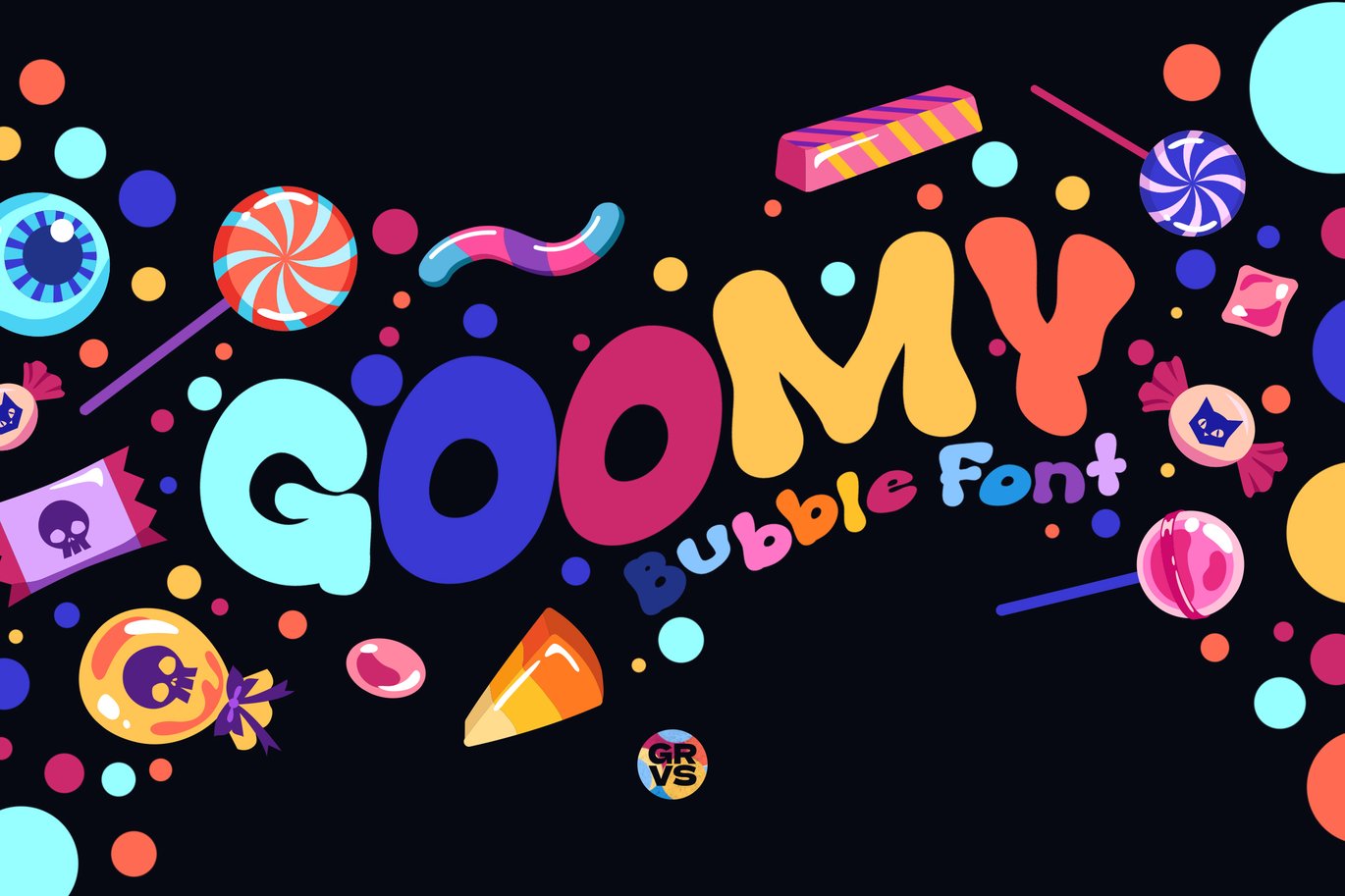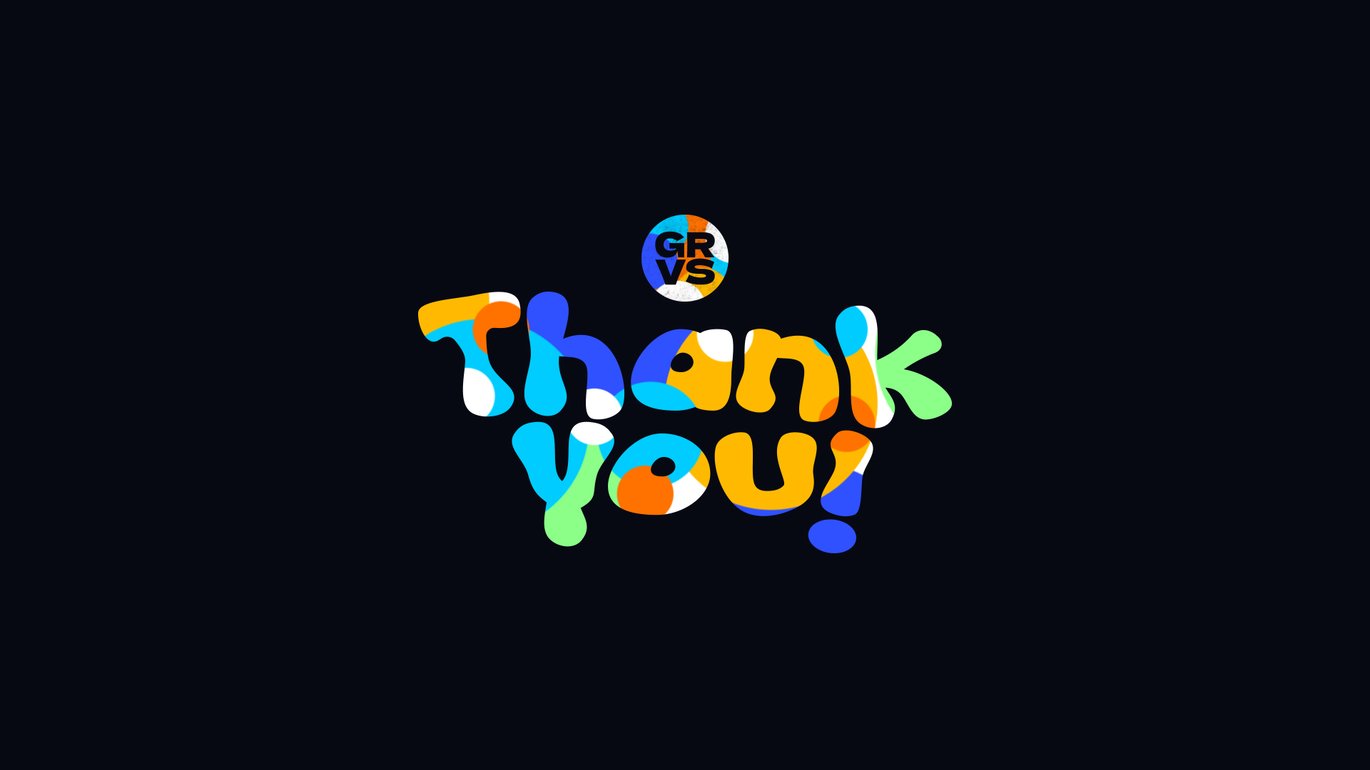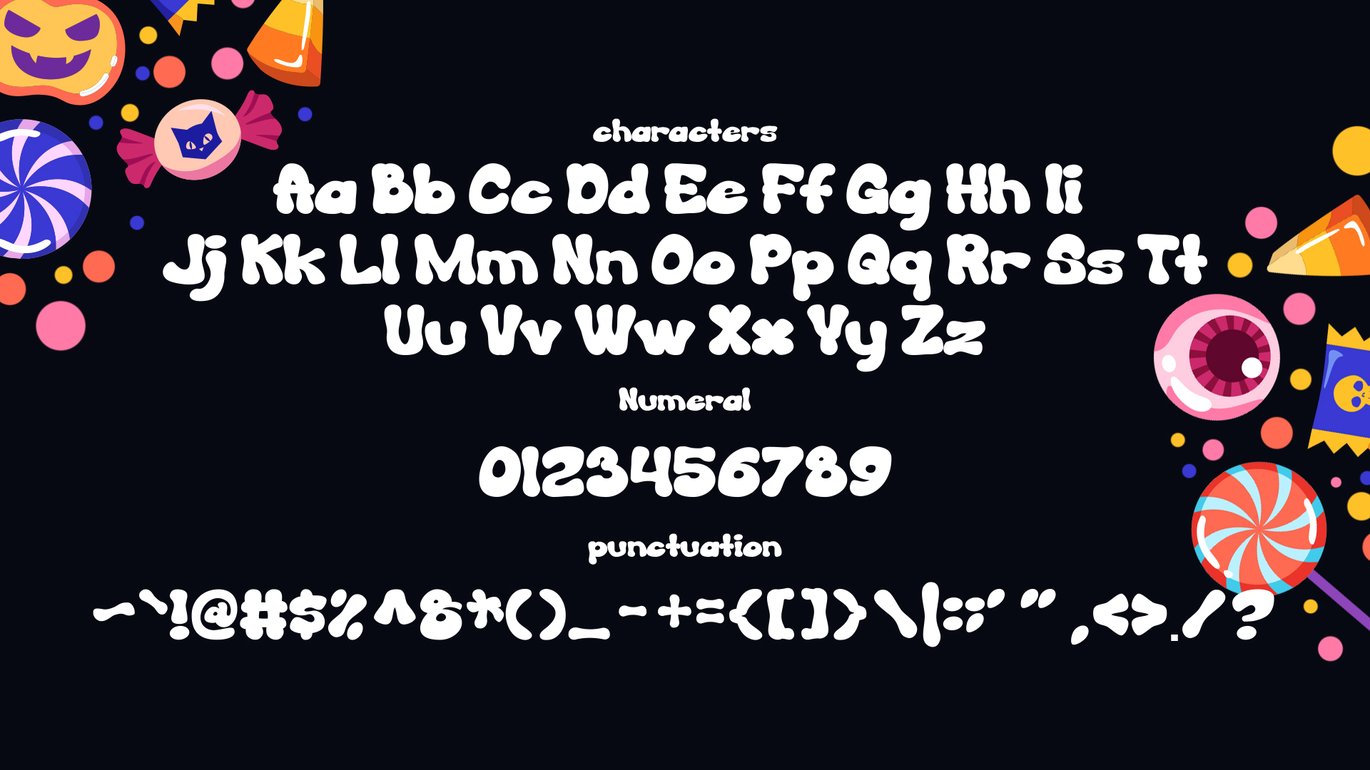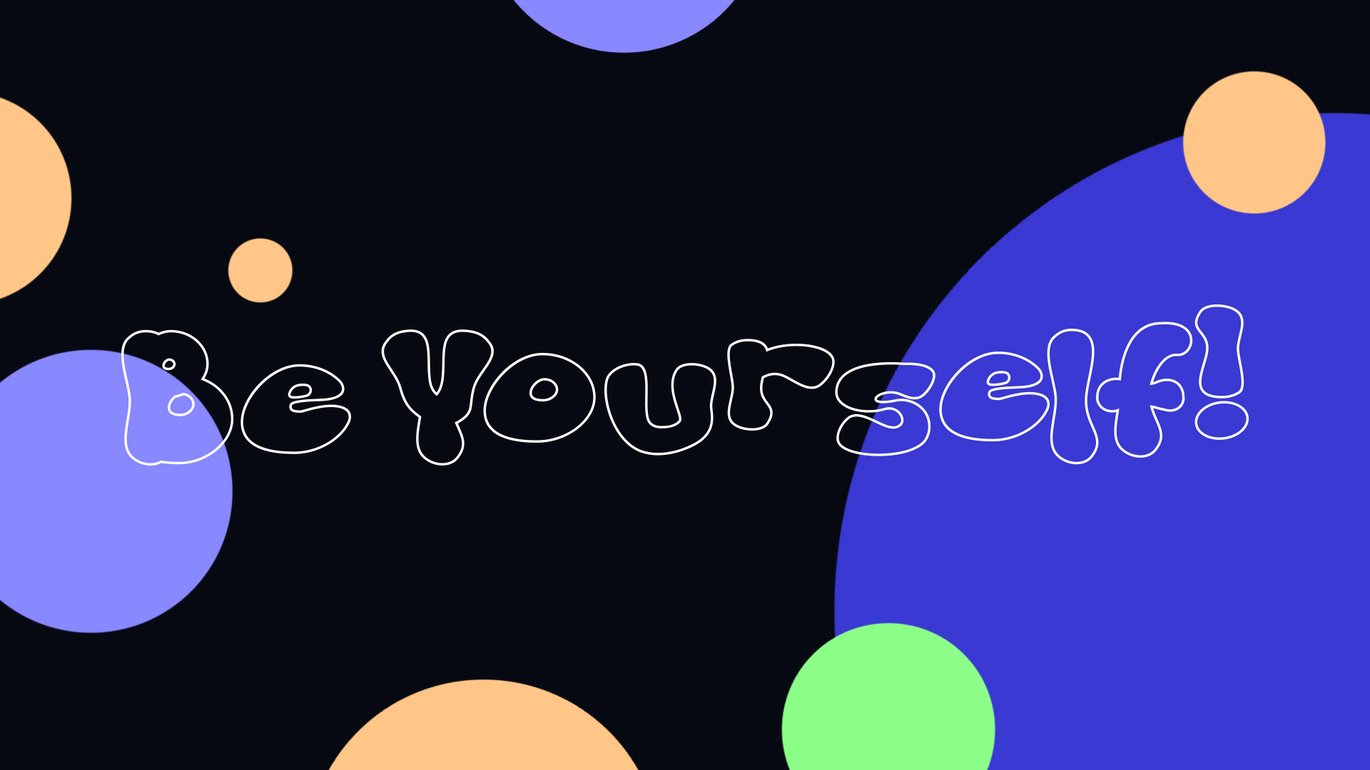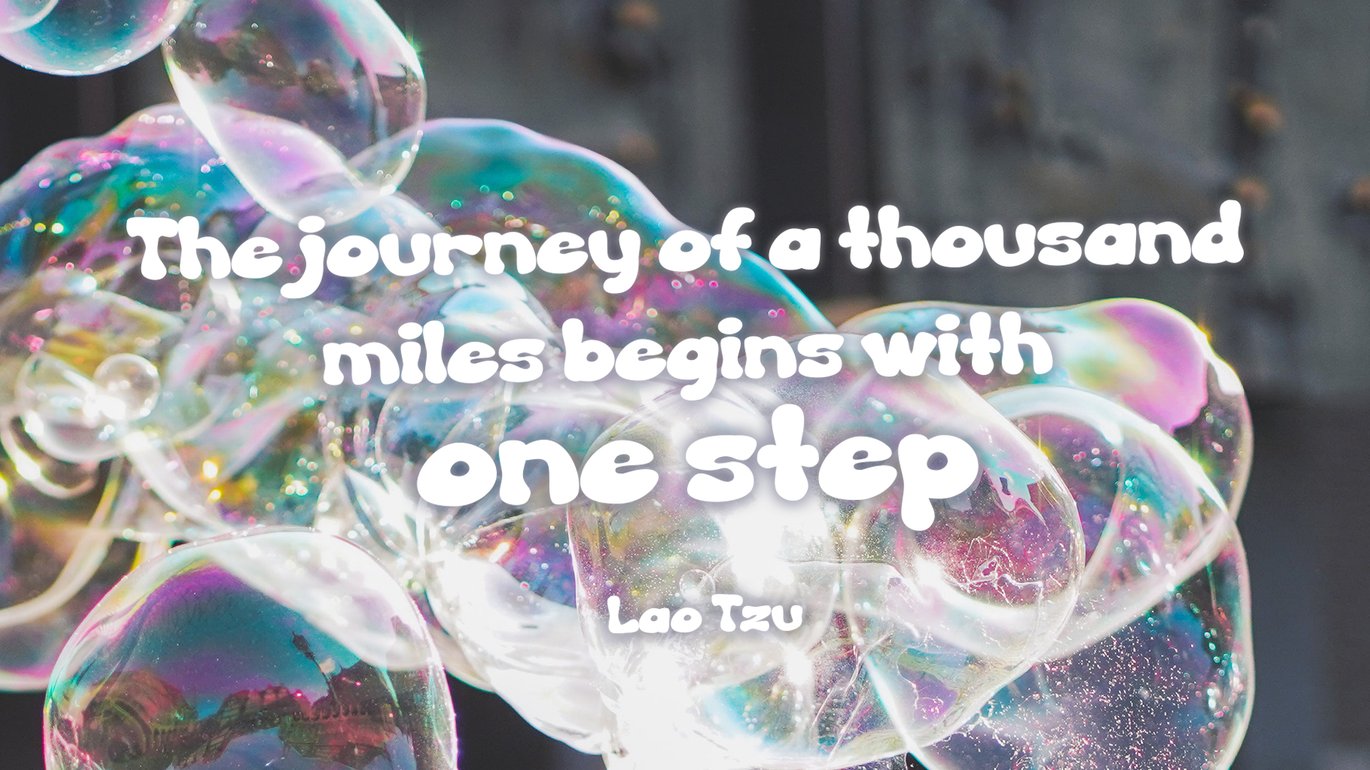
Goomy Funny Bubble Font
GRVS Goomy Funny Bubble Font is our new item that is suitable for your team logo, or community logo with a Funny, Kids and Joy theme.
Great for Logo, Sticker, Jersey, Invitation Card, Brochures, etc.